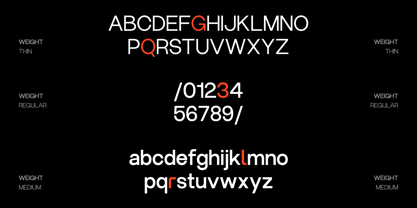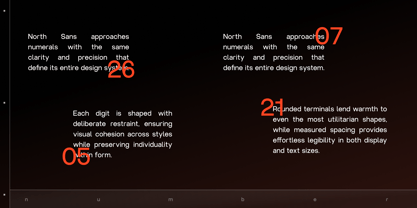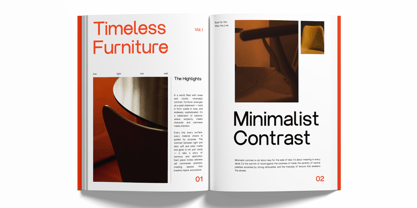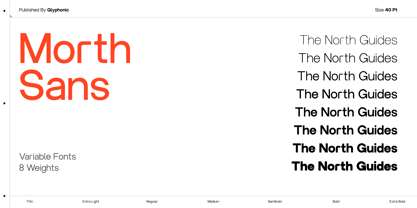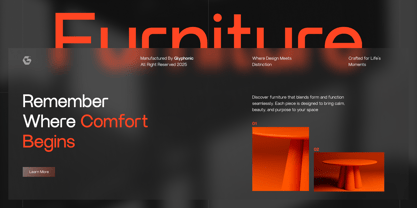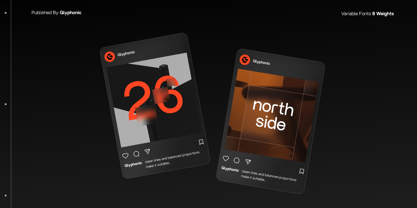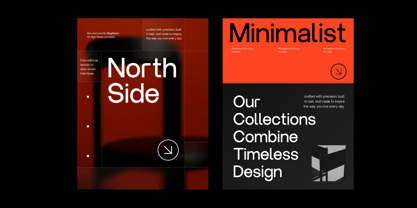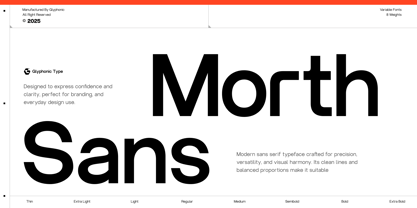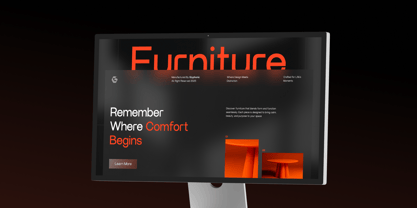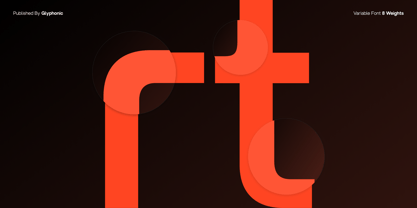
GC Morth Sans
by Onyx Studio
The GC Morth Sans Font Family was designed by Muhammad Hafiizh Solana and published by Onyx Studio. GC Morth Sans contains 8 styles and family package options. More about this family
GC Morth Sans – Neo Modern Sans is a contemporary sans serif typeface crafted with a focus on clarity, balance, and modern precision. Its clean geometry and confident strokes create a strong visual presence that performs flawlessly across both digital and print media. Designed to embrace simplicity without sacrificing character, it’s ideal for branding, editorial design, tech-inspired visuals, and forward-thinking identities. Balanced proportions and refined detailing make GC Morth Sans both adaptable and distinctive. Whether you’re designing sleek interfaces, bold headlines, or minimalist layouts, this font delivers power, modernity, and timeless sophistication to your typography. Features: Uppercase & Lowercase Numbers & Punctuation Neo-Modern Geometric Construction Multilingual Support (170+ Languages) Bring clarity, modern strength, and refined simplicity to your design with GC Morth Sans.
Designers: Muhammad Hafiizh Solana
Foundry: Onyx Studio
GC Morth Sans